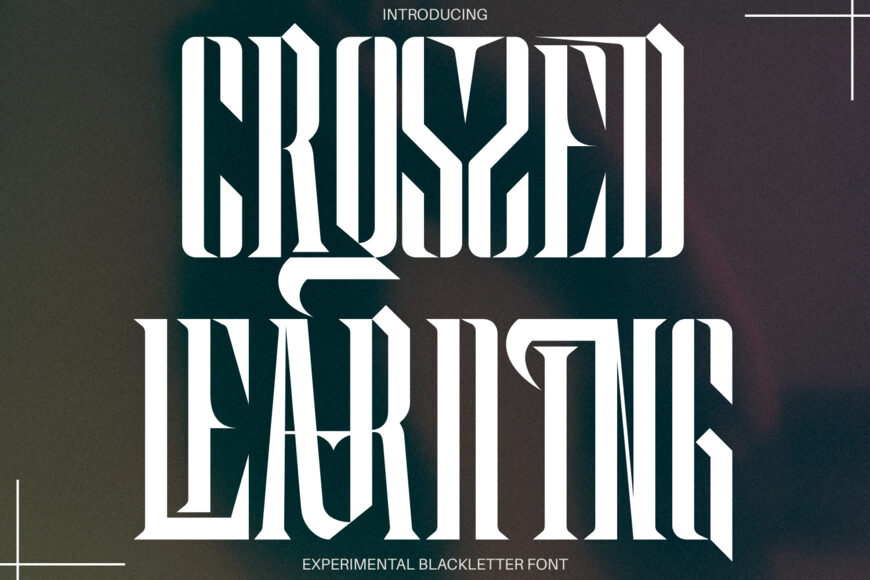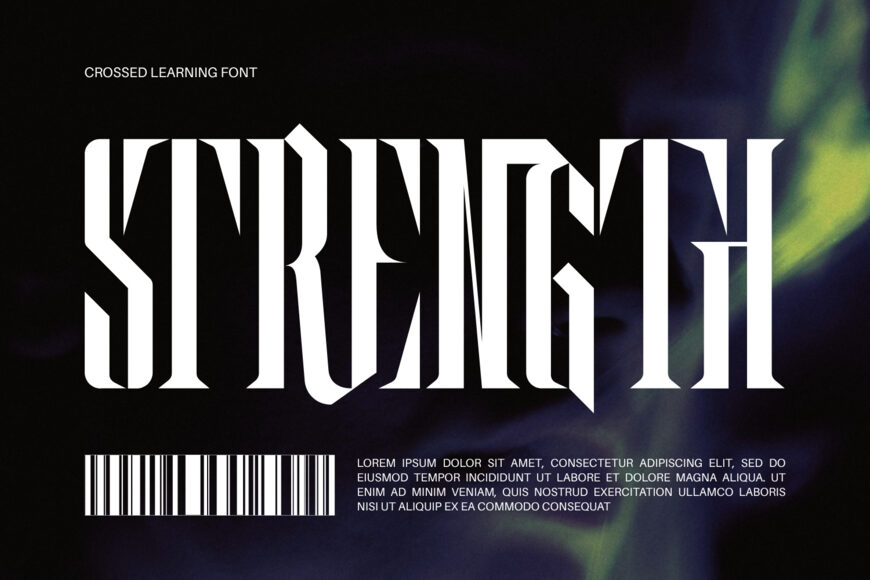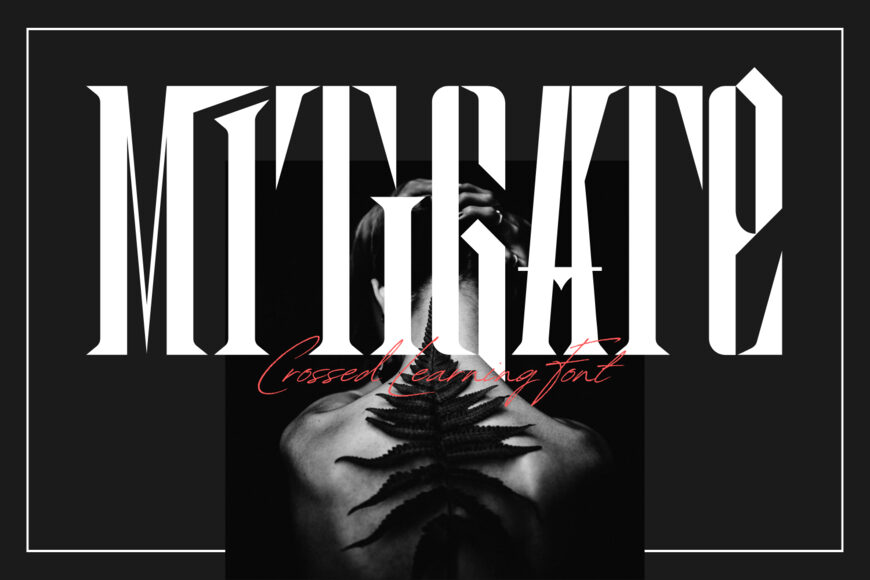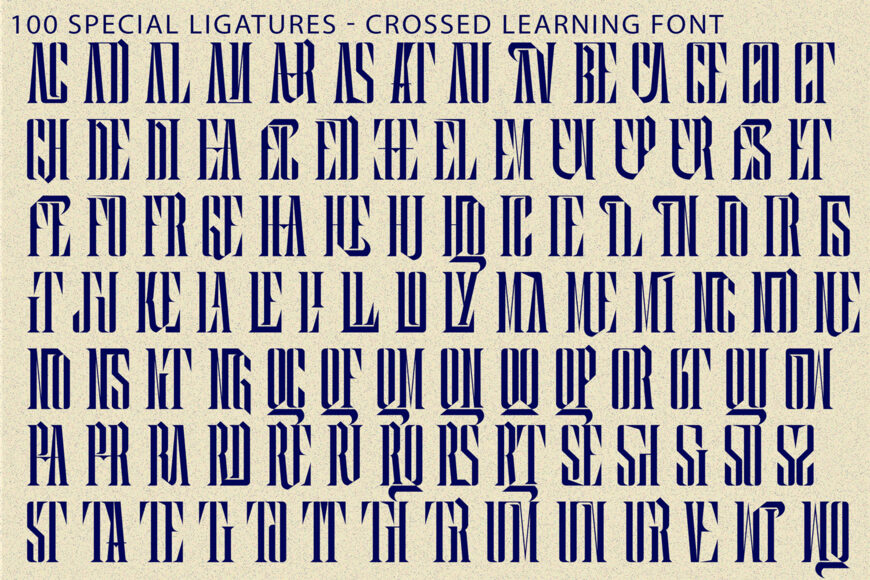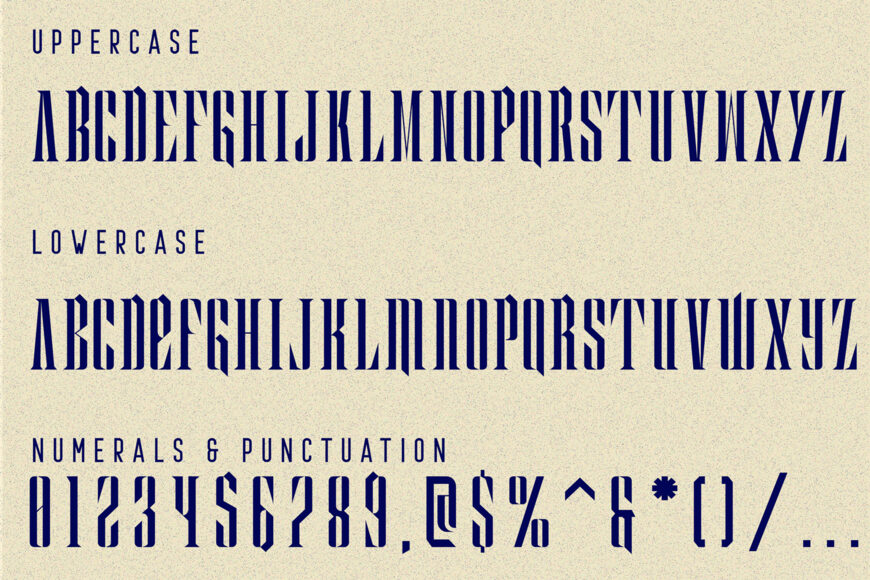
Crossed Learning is a formidable ultra-condensed display serif font that fuses the majestic architecture of classical Blackletter with raw, futuristic cyber-brutalism. Defined by its towering vertical proportions, cyber gothic style, razor-sharp dagger spurs, and chiseled angular cutouts, this typeface commands maximum visual authority in any layout.
Engineered specifically for high-impact headlines, Crossed Learning balances heavy vertical stems against sharp, thorn-like terminals and geometric inner counters. It is the definitive choice for streetwear apparel graphics, metal and phonk album covers, cyberpunk event posters, dark fantasy game UI, and bold branding identities looking to make a fierce statement.